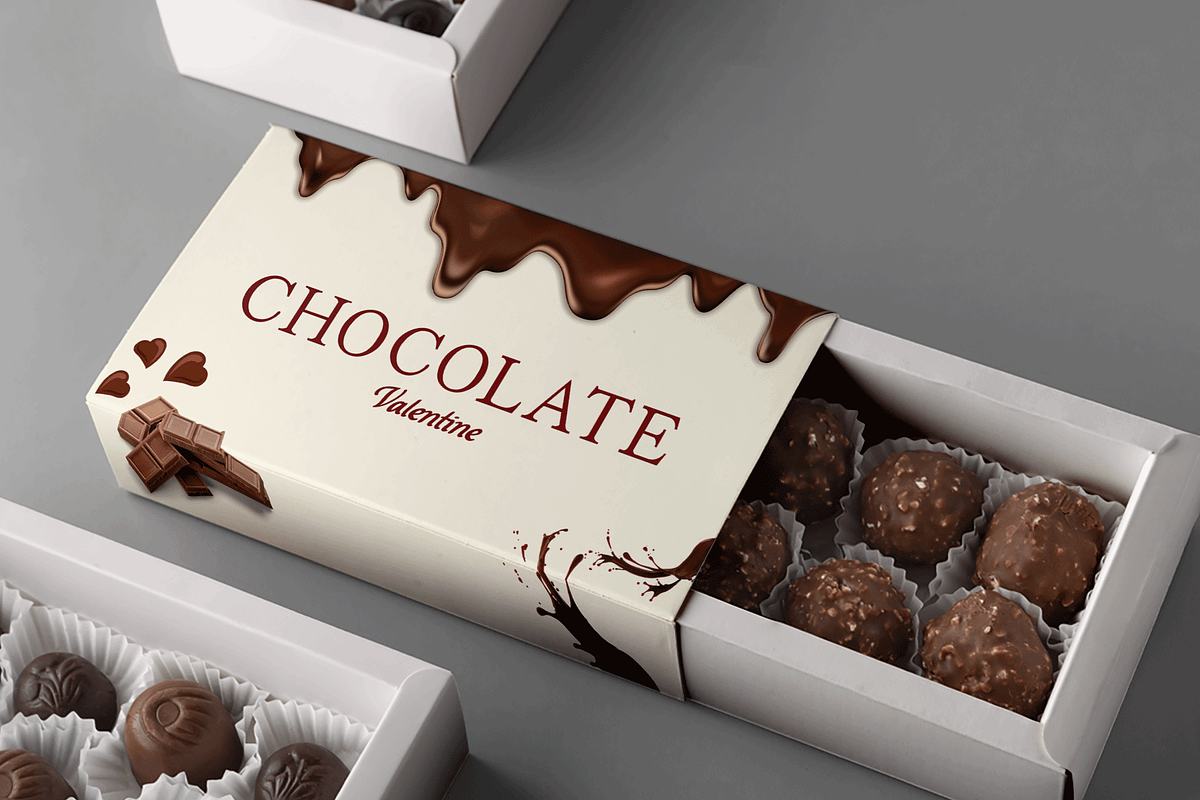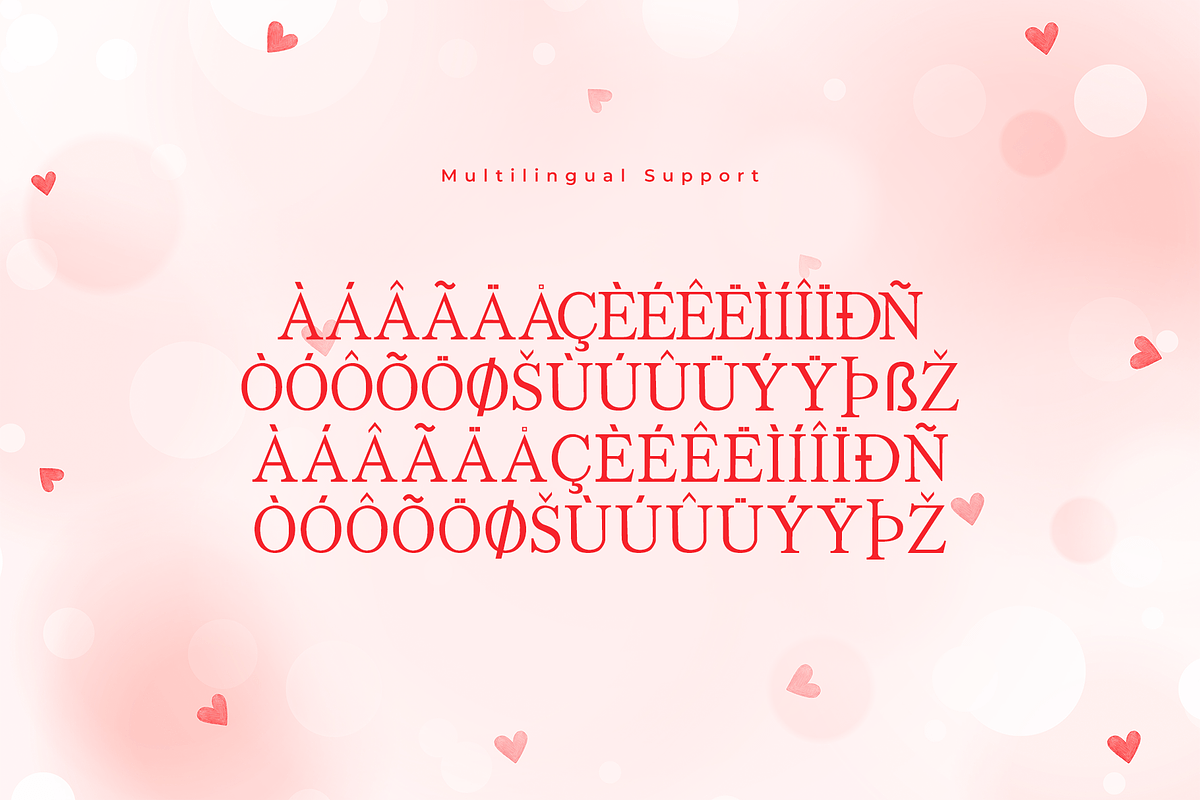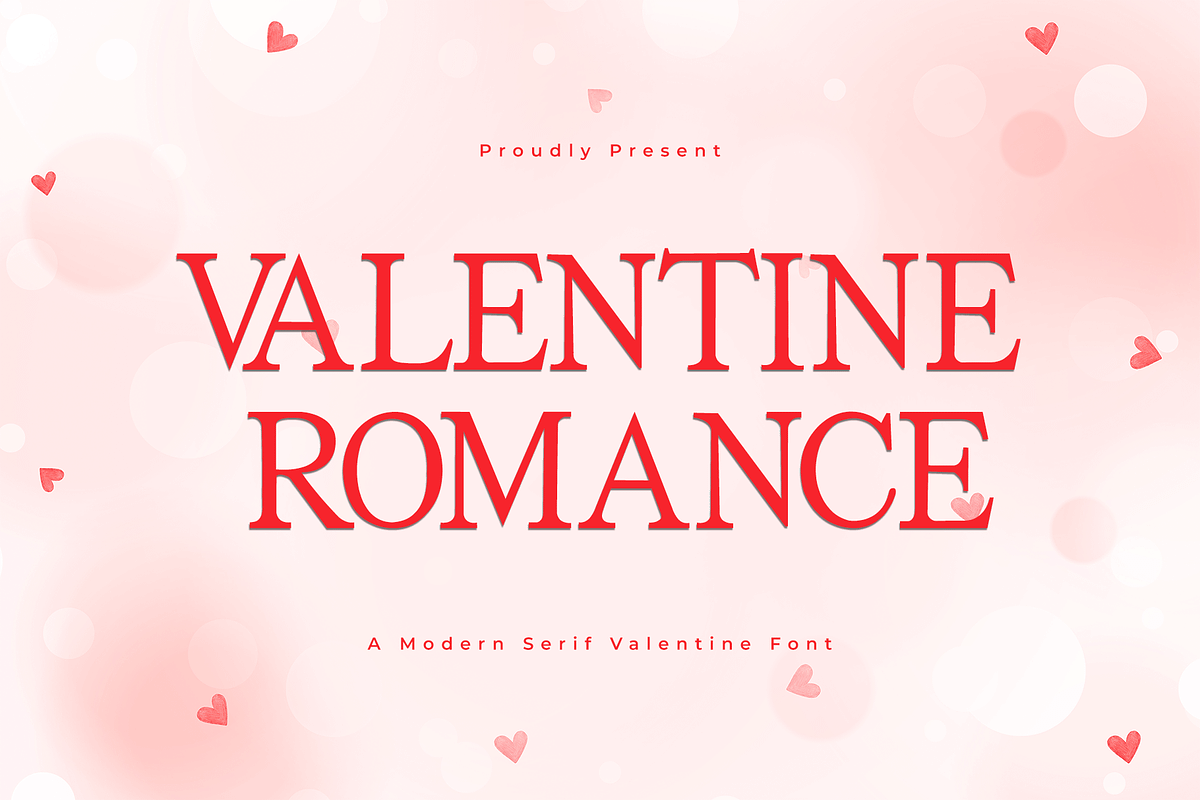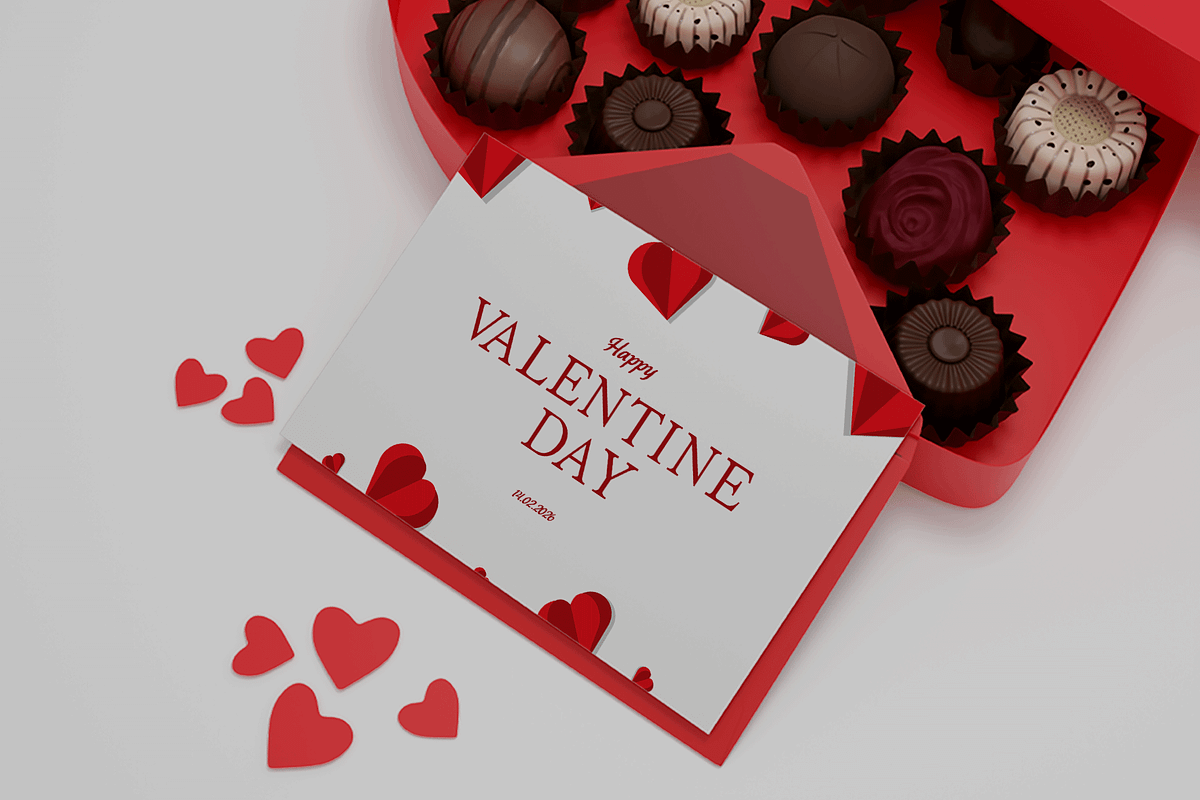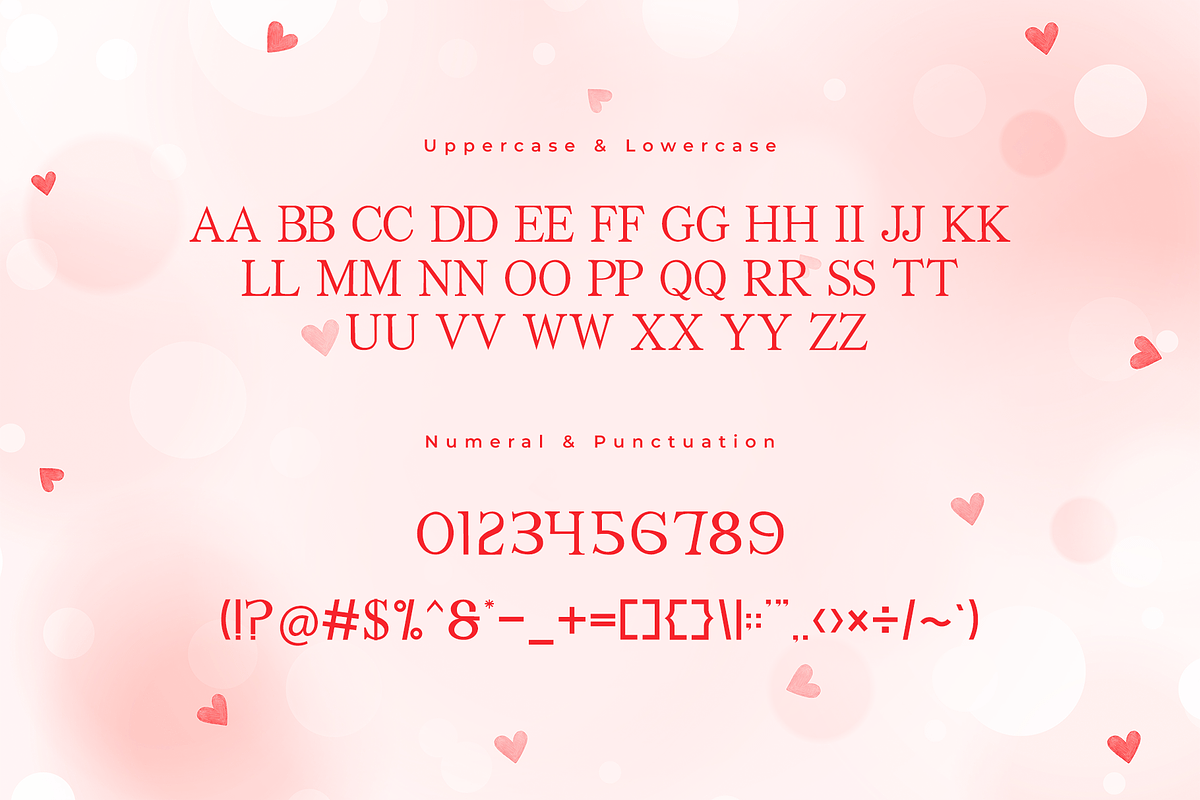
Valentine Romance - Serif Valentine
Valentine Romance - A Modern Serif Valentine Font
Capture the essence of love with Valentine Romance, a modern serif font designed to evoke feelings of passion and elegance. Its smooth curves and distinctive serifs bring a romantic flair to every design.
Perfect for Valentine’s Day cards, wedding stationery, branding, and more, Valentine Romance ensures your projects radiate charm and sophistication. Its timeless design blends classic beauty with modern touches.
With a complete character set, multilingual support, and stylish ligatures, Valentine Romance is the perfect companion for your love-filled creations.